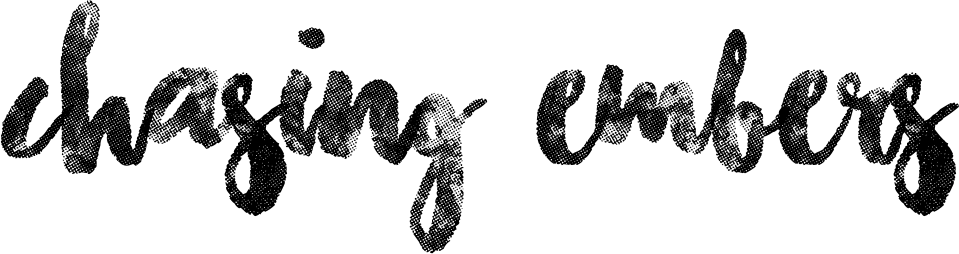
Chasing Embers Font
Which includes the Capitals, Numerals and some Punctuations.
A Typeface that has ink/watercolor texture of its own.
No need to overlay anything, just throw it over your photographs and projects!
This font is a camouflage to whatever background you lay under it. Have fun!
Note: Try typing the underscore symbol, it’s a bonus!